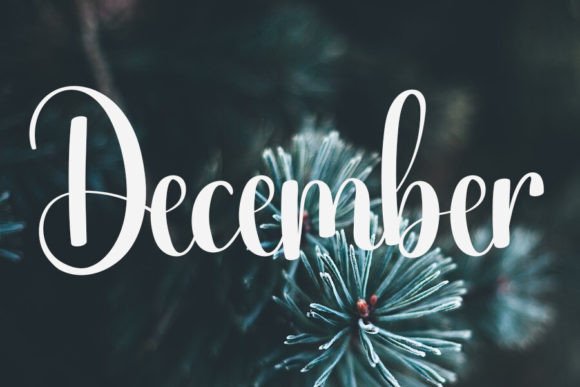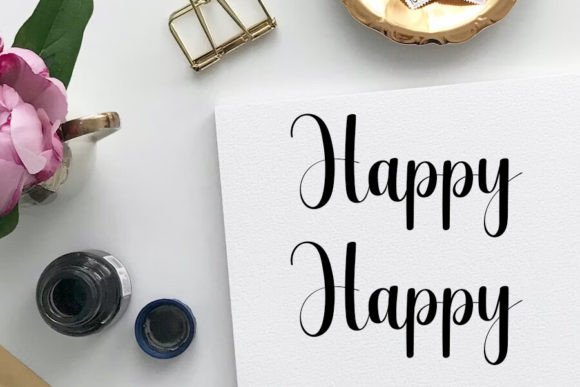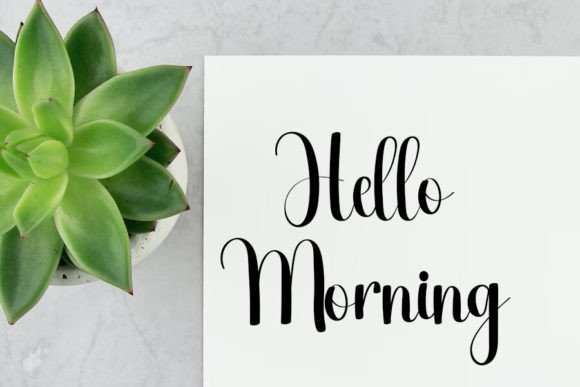
Introducing Christmas Santa Font: The Ultimate Holiday Design Companion
Are you looking for a font that captures the essence of the holiday season? Do you want to add a touch of magic to your designs, crafts, and projects? Look no further than Christmas Santa Font, a sweet and friendly handwritten font that’s perfect for designers, crafters, and anyone looking to spread some holiday cheer.
What is Christmas Santa Font?
Christmas Santa Font is a unique and versatile handwritten font that’s designed to bring a sense of joy and festivity to your designs. Its natural and unique style makes it incredibly fitting to a large pool of designs, from holiday cards and decorations to craft projects and digital downloads. The only limit is your imagination!
Key Features of Christmas Santa Font
- Sweet and Friendly Style: Christmas Santa Font has a warm and inviting style that’s perfect for creating holiday designs that are both fun and festive.
- Handwritten with Love: This font is carefully crafted to mimic the look and feel of handwritten text, giving your designs a personal and human touch.
- Natural and Unique: The font’s natural and unique style makes it stand out from more traditional fonts, adding a touch of personality to your designs.
- Versatile and Adaptable: Christmas Santa Font can be used for a wide range of designs, from holiday cards and decorations to craft projects and digital downloads.
Uses for Christmas Santa Font
So, what can you do with Christmas Santa Font? The possibilities are endless! Here are a few ideas to get you started:
- Holiday Cards and Invitations: Use Christmas Santa Font to create personalized holiday cards and invitations that are sure to delight your friends and family.
- Decorations and Signage: Add a touch of festive flair to your holiday decorations and signage with this fun and friendly font.
- Craft Projects: Use Christmas Santa Font to add a personal touch to your craft projects, from scrapbooking and journaling to knitting and sewing.
- Digital Downloads: Create digital downloads, such as printable art and planners, using Christmas Santa Font to add a touch of holiday cheer.
Tips for Using Christmas Santa Font
Here are a few tips for getting the most out of Christmas Santa Font:
- Experiment with Sizes and Colors: Try out different sizes and colors to see how Christmas Santa Font looks in different contexts.
- Pair with Other Fonts: Combine Christmas Santa Font with other fonts to create interesting and dynamic text combinations.
- Use for Headings and Titles: Use Christmas Santa Font for headings and titles to add a touch of festive flair to your designs.
Christmas Santa Font is a sweet and friendly handwritten font that’s perfect for designers, crafters, and anyone looking to add a touch of holiday cheer to their designs. With its natural and unique style, versatile and adaptable design, and endless possibilities for use, this font is sure to become a favorite in your design toolkit. So why wait? Download Christmas Santa Font today and start creating your own holiday magic!